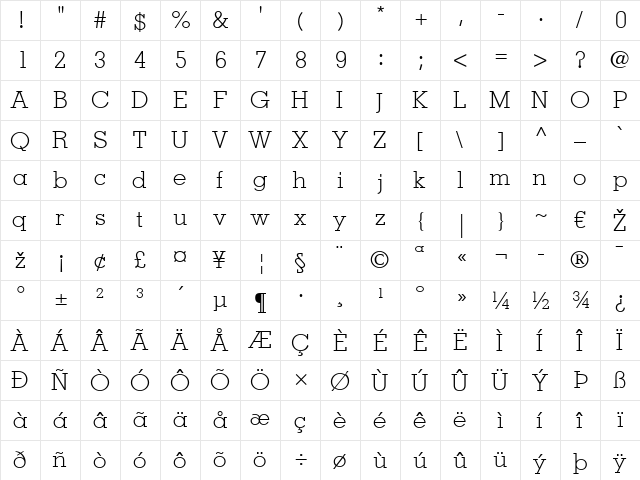
Memphis LT Light Regular
Design Context for Memphis LT Light Typeface
Memphis LT Light is a composed and adaptable typeface that performs quietly and consistently across a wide range of design contexts. Its slender proportions lend an understated elegance to any composition.
Pro Tip: Pair Memphis LT Light with a font of contrasting weight or personality to build a more expressive typographic hierarchy.